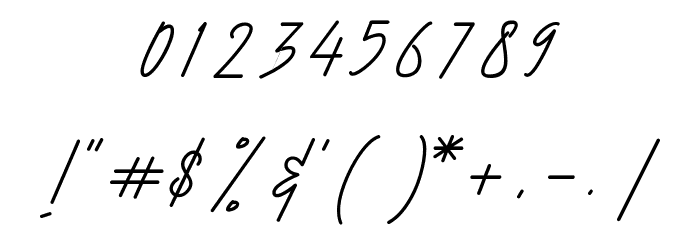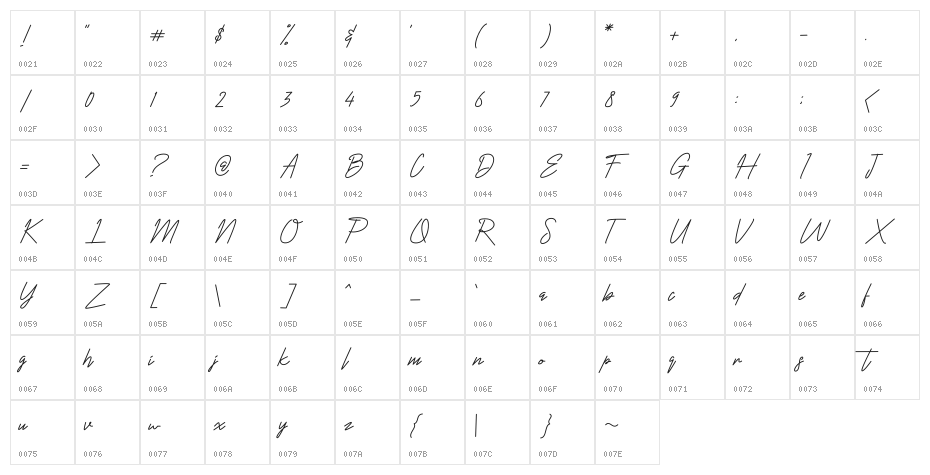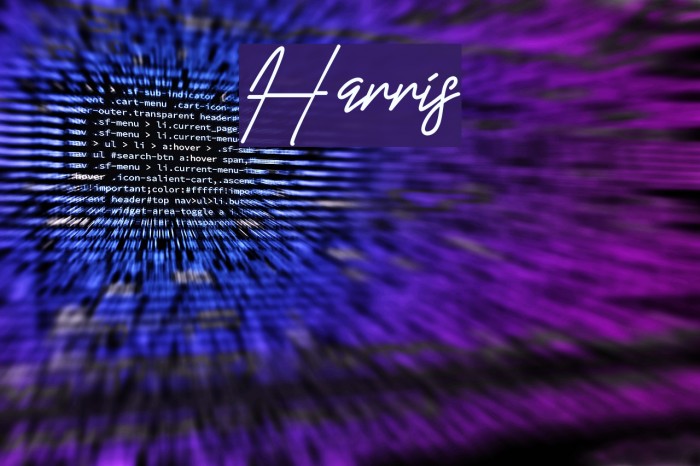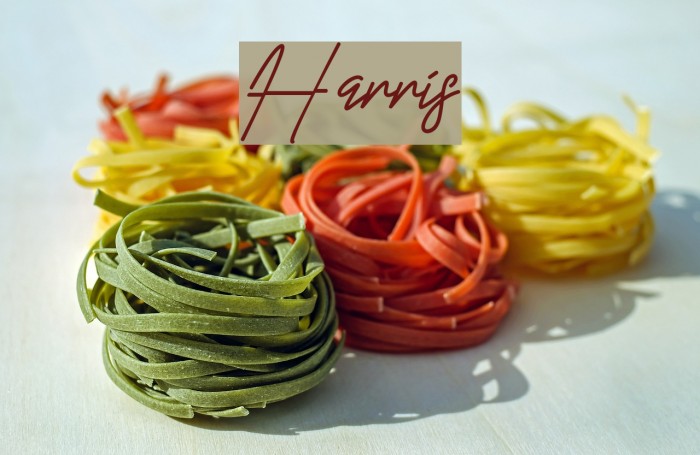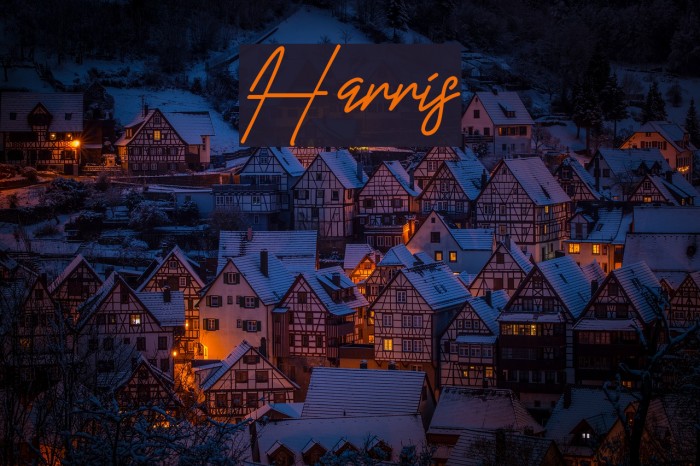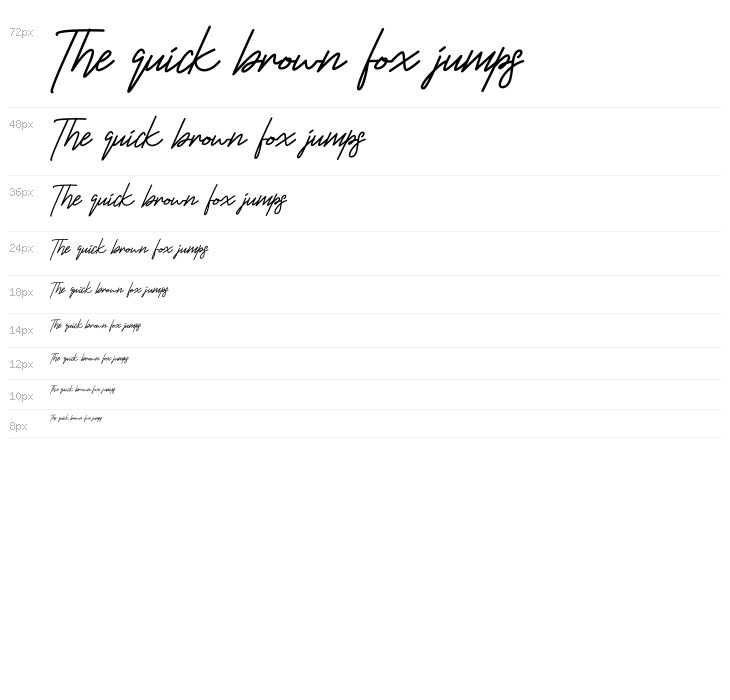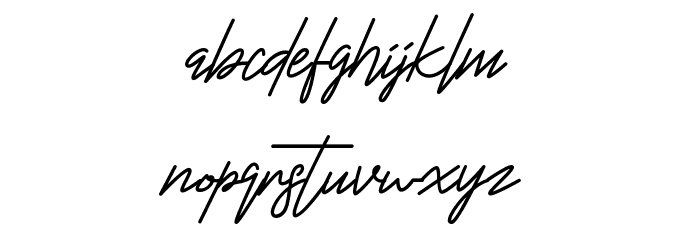
Harris Font
Harris Description
This font exhibits a stylish and elegant cursive design, characterized by its flowing, interconnected letterforms. The uppercase letters are tall and slender, with a slight slant that adds a dynamic feel. The lowercase letters maintain a consistent flow, enhancing readability while preserving a handwritten aesthetic. Numbers are crafted with the same fluidity, ensuring uniformity across all characters. The special characters blend seamlessly, maintaining the font's overall cohesive look. This font's delicate strokes and graceful curves make it suitable for projects requiring a personal touch.
| Use Case | Logos, Invitations, Personal branding |
| Proposed Projects | Ideal for wedding invitations, greeting cards, personal branding, and elegant signage. |